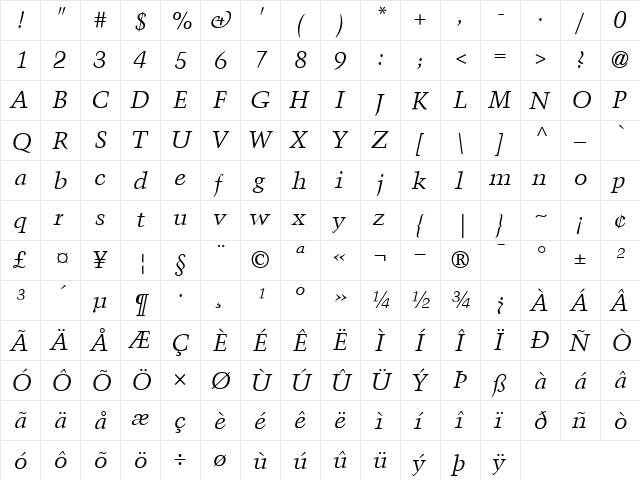
TrumpMediaeval RomanItalic Font Preview
TrumpMediaeval RomanItalic
Design Context for TrumpMediaeval Typeface
TrumpMediaeval is a composed and adaptable typeface that performs quietly and consistently across a wide range of design contexts. Its italic angle brings a sense of urgency and motion to the letterforms.
Pro Tip: Try TrumpMediaeval for annotation and caption copy alongside an upright companion — the contrast in angle creates a dynamic but ordered typographic system.